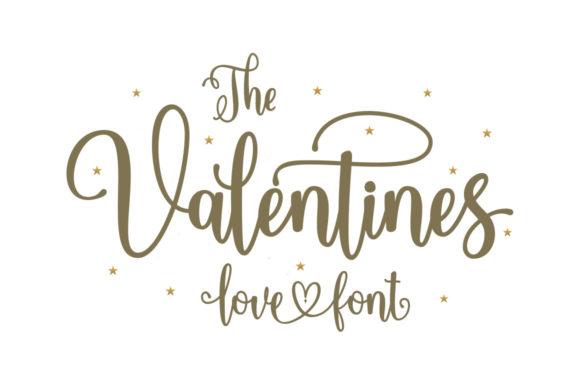
The Valentines Font
Embark on an enchanting journey with The Valentines Font, a script of delicate beauty and romantic grace. Let this masterpiece carry your words and designs to new heights, evoking a symphony of emotions with every stroke. Dive into a world where elegance and charm intertwine, inviting the hearts of your audience to be swept off their feet.
The Valentines Font is not just a mere collection of letters; it's an exquisite work of art, a testament to the power of typography. Its flowing lines and graceful curves are crafted with the utmost attention to detail, ensuring a visual experience that is both captivating and timeless. Whether you're creating wedding invitations, designing logos, or crafting heartfelt messages, The Valentines Font will elevate your creations to new levels of sophistication and allure.
Step into a realm of boundless creativity, where The Valentines Font becomes your muse. Its versatility knows no bounds, allowing you to effortlessly craft designs that exude charm and elegance. Watch as your words transform into captivating titles, your invitations radiate warmth and romance, and your branding radiates a sense of timeless sophistication. The Valentines Font is your key to unlocking a world of visual enchantment, where every letter tells a story and every design becomes a work of art.
With The Valentines Font, your designs will bloom into masterpieces that captivate and inspire. Its delicate strokes and enchanting aura will draw your audience into a world of dreams, leaving them spellbound by the beauty of your creations. It's the perfect font for those who seek to add a touch of magic to their work, whether it's for personal projects or professional endeavors.
So, embrace the allure of The Valentines Font and let it ignite your creative spark. Discover a world of endless possibilities, where your imagination knows no limits. As you explore the depths of this extraordinary font, you'll uncover a treasure trove of design opportunities, transforming your visions into captivating realities. Embrace the beauty of The Valentines Font and let your creativity flourish.